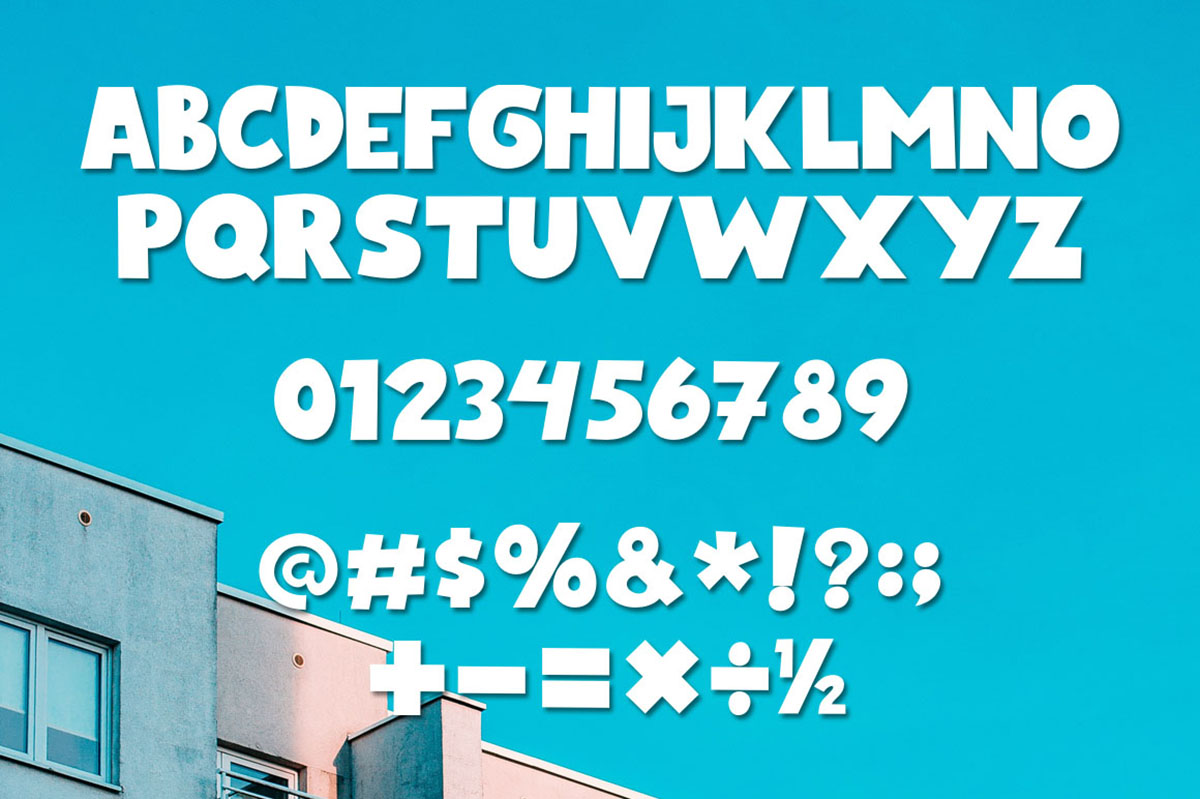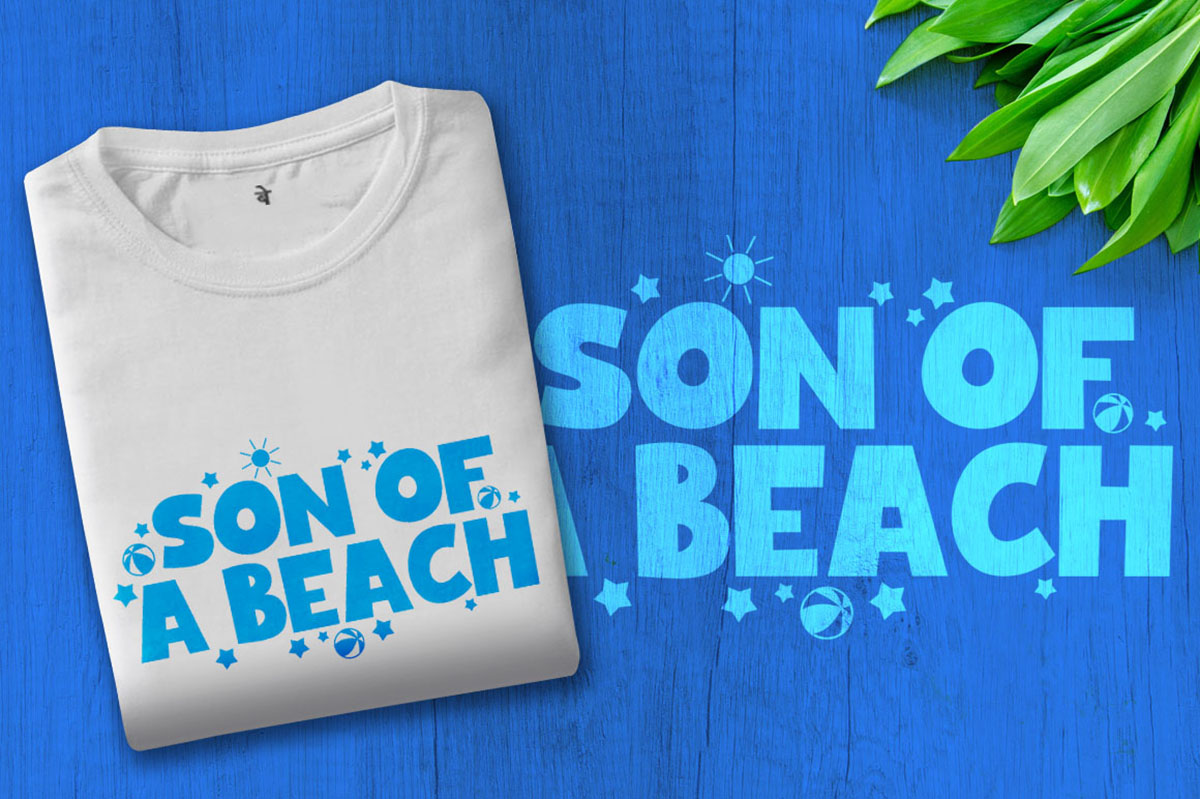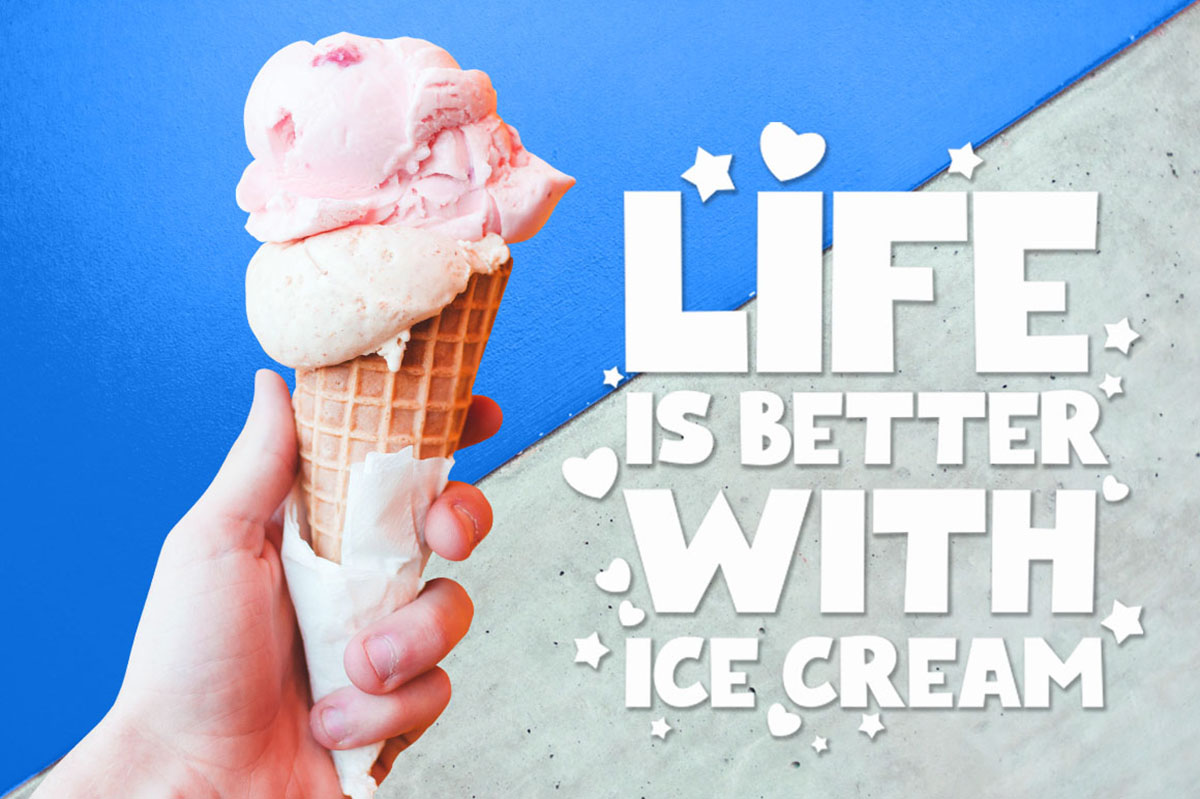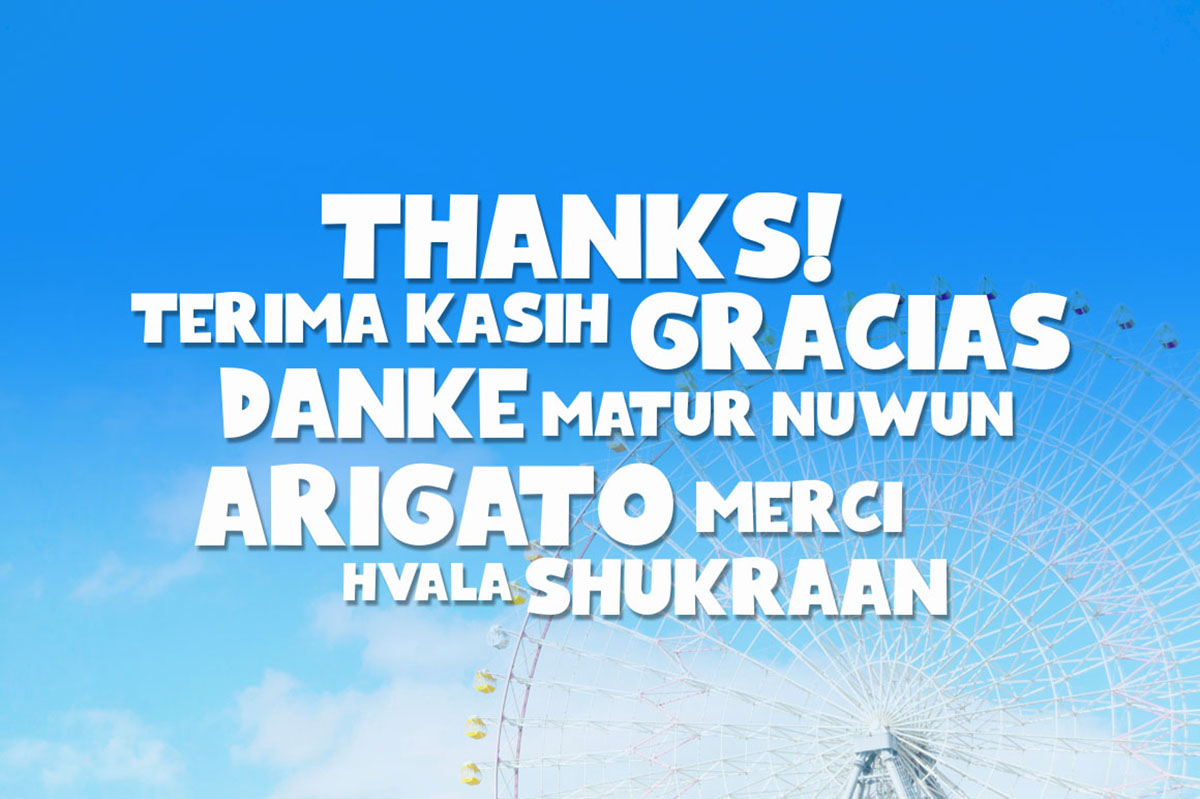
Blue Night Free Font
Blue Night Free Font is a thick font with a thick cartoon feel, easy to read, fun, a font that you can easily play. Suitable for various media, posters, banners, brochures, and various merchandising such as t-shirts, tote bags, stickers, and much more. This free typeface was designed by the talented Azka Rizki. If you like it don’t forget to check out the full version.